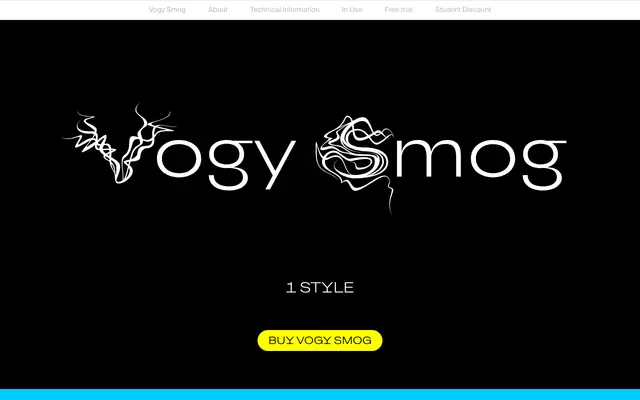
Vogy
A geometric sans-serif from Swiss Typefaces, designed by Liudmila Bredikhina with engineering by Christoph Koeberlin.
Designed by Liudmila Bredikhina under the Swiss Typefaces label, Vogy follows the foundry's tendency toward precise, rationally constructed letterforms. Font engineering was handled by Christoph Koeberlin, with development and updates by Quentin Schmerber. Limited information is publicly available about its full weight range and language support.
Based on the Swiss Typefaces provenance and the designer's background, Vogy is likely a geometric or rational sans-serif, consistent with Swiss Typefaces' catalogue of precise, modernist typefaces.